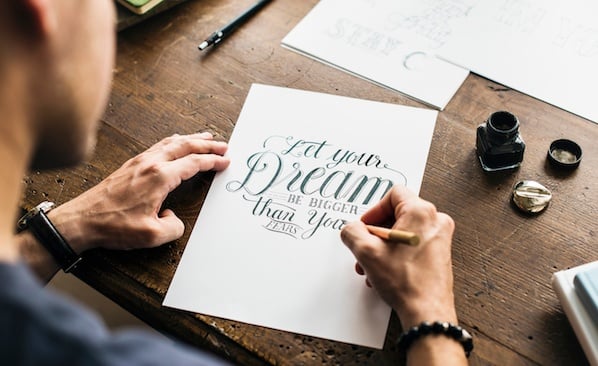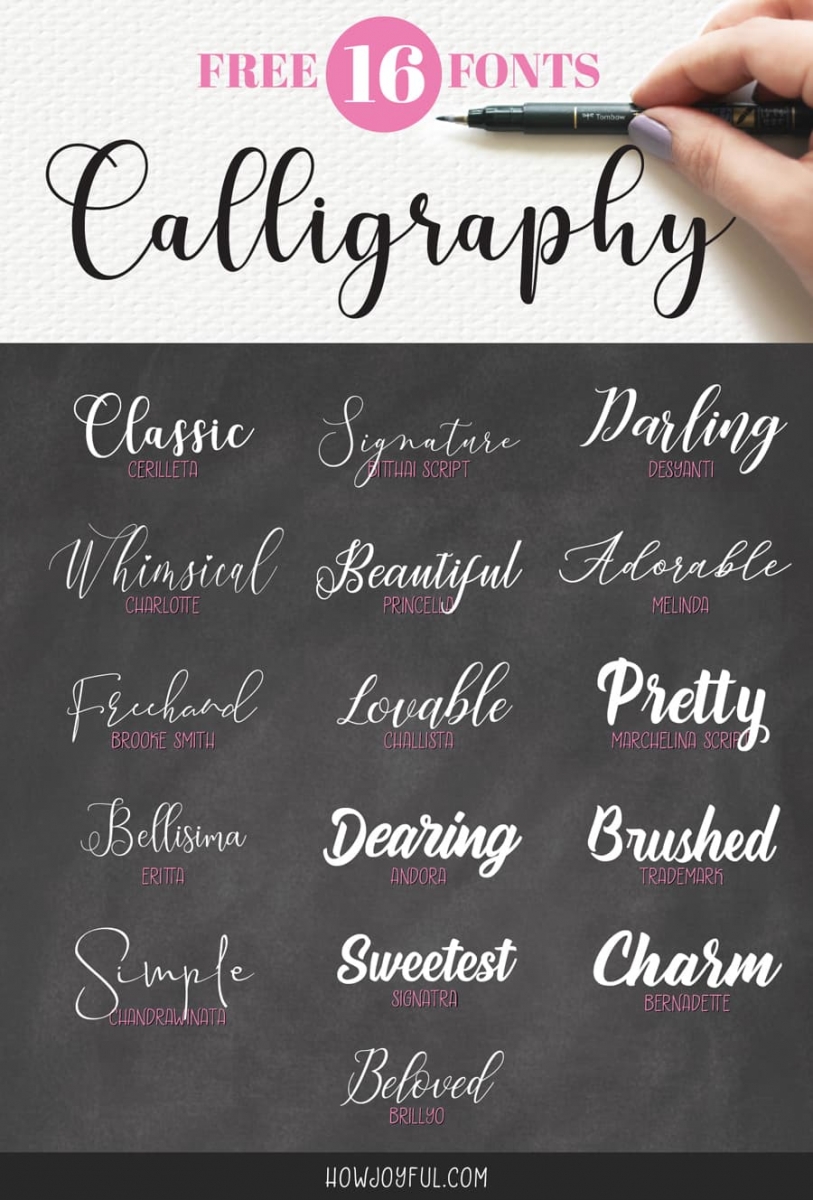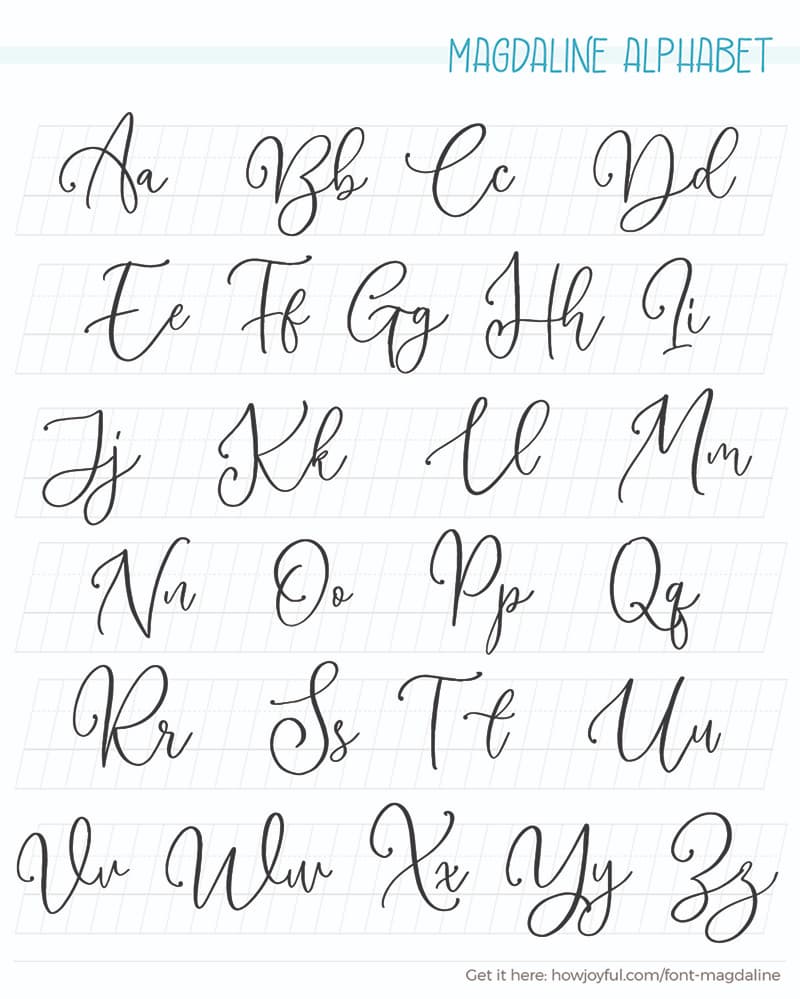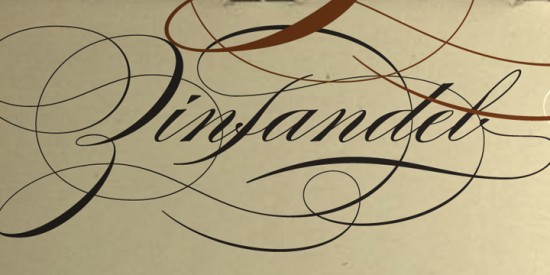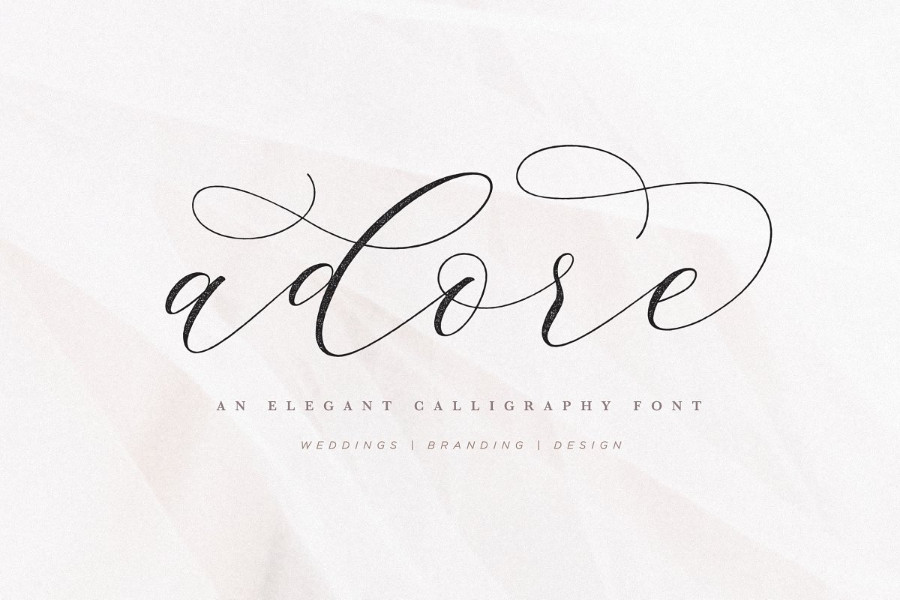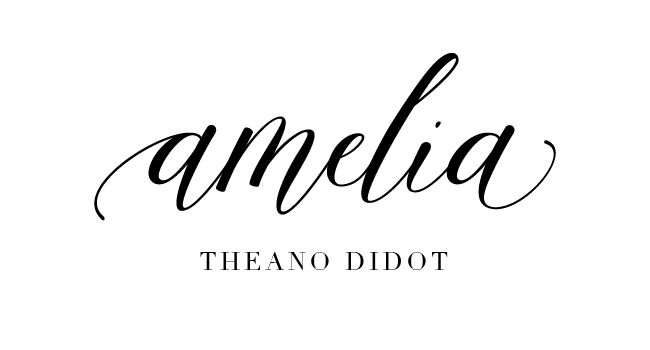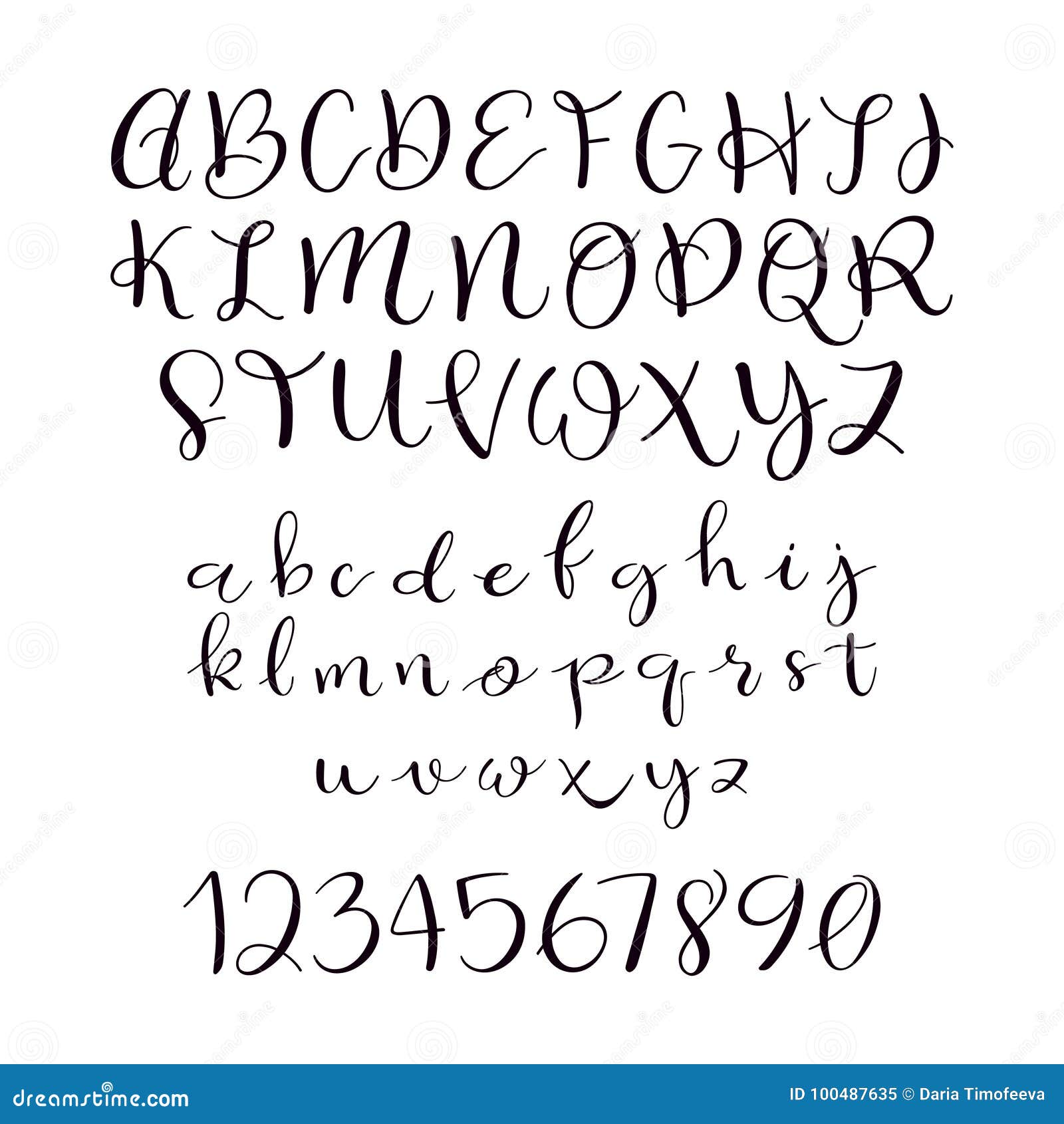
Bundle by BlessedPrint - Just 18 MORE INFORMATION DOWNLOAD. According to the designer the font is an ode to the late 19 th century American calligrapher Louis Madarasz known as the most skillful penman the world has ever known.
Calligraphy fonts are widely used in wedding event invitations original logo design religious art films TV etc. Calypsoka by Octotype Category. Bitterlove font is perfect.
The main sub-styles are traditional calligraphy and modern. The height of calligraphy was reached in the middle age where monks developed the narrow writing style called gothic allowing more words to fit on a single line as paper was expensive at the time. Customize your Calligraphy letter text with our generator below and download or print your custom Calligraphy letters instantly.
It has flowing letters that will give your designs a unique and sweet look with many lovely caracters. Calligraphy is an ancient writing technique using flat edged pens to create artistic lettering using thick and thin lines depending on the direction of the stroke. It usually involves a nibbed pen or brush.
Modern calligraphy typefaces differ from traditional calligraphy in that they do not adhere to specific lettering rules. In fact calligraphy is displayed by some fonts. We have 47 free Cool Calligraphy Fonts to offer for direct downloading 1001 Fonts is your favorite site for free fonts since 2001.
Lily of the Valley_Personal_Use by dcoxy - Greg Medina Category. A tribute to the styles of calligraphy in the United States from the 20th century Monsieur La Doulaise is a stunningly stylish and elegant looking font. Calligraphy can be generated.